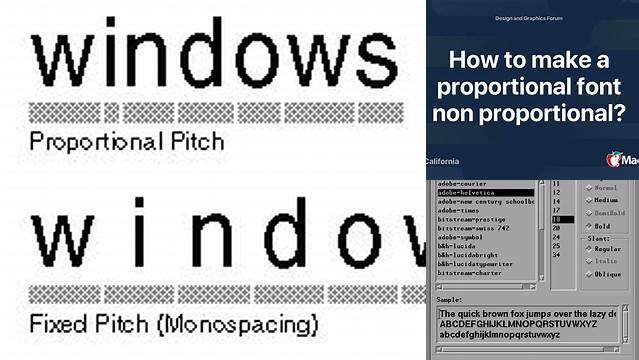
Windows Non-Proportional Fonts: Your Guide
Hey guys! Ever wondered about those fonts that make your code or text look super neat and tidy? We're diving into the world of Windows non-proportional fonts! These fonts, also known as monospace fonts, are designed with a special characteristic: every character, from the letter 'i' to the letter 'W', takes up the exact same amount of horizontal space. This consistency is what makes them perfect for specific uses. This article will explore the importance of non-proportional fonts, their use cases, how to find them on Windows, and why they are still incredibly relevant today. So, let's jump in and discover why these fonts are essential for developers, writers, and anyone who loves a clean and structured look.
What are Windows Non-Proportional Fonts? Why do they matter?
Alright, let's get down to basics. A non-proportional font, as mentioned before, assigns the same width to each character. This is totally different from proportional fonts, like Times New Roman or Arial, where the 'i' takes up much less space than the 'W'. Think about it: in code, where alignment is critical, having each character take up the same space ensures that everything lines up perfectly. This is crucial for code readability and debugging. The impact of non-proportional fonts goes far beyond just coding. Consider creating a table where you need columns to align exactly. Or maybe you’re formatting data in a terminal. The consistent spacing ensures visual clarity, making it easier to read and understand information at a glance. Understanding this characteristic is key to grasping their value. These fonts prevent common issues like misaligned code, which can be a major headache for developers. They are the backbone of many text-based applications and environments. Whether you're a programmer, a writer, or a data enthusiast, Windows non-proportional fonts bring order and structure to your digital text, and they should matter to you.
Imagine you're trying to spot a typo in a long piece of code. With a proportional font, characters can look jumbled, making it hard to catch small errors. Using a monospace font, everything is neatly organized, and the typo will jump out at you! The consistent spacing also makes it easier to spot patterns and relationships in your text. It helps with visual organization, improving the way information is presented. From a design perspective, these fonts give a sense of simplicity and technical precision. They're not just functional, but they also add a unique aesthetic, often associated with a sense of professionalism and expertise. The choice of non-proportional fonts often reflects a commitment to precision and clarity. In data analysis, for example, the proper display of information is critical. When different values appear in columns with different widths, things quickly become unreadable. With monospace fonts, all the values are guaranteed to align perfectly, allowing for a more efficient review of the information. This is also important when you're working with command-line interfaces (CLIs). These are the tools used for system administration and software development. The clear and organized layout of the CLI helps prevent errors and makes these environments more efficient. Finally, the role of non-proportional fonts in the modern world is significant, enabling programmers and others who depend on a clean presentation of text data to complete their tasks.
Key Use Cases for Non-Proportional Fonts
So, where do these fonts shine? Let's explore some essential use cases! The primary application is in coding and programming. Code needs perfect alignment, and a monospace font provides that. The consistent width of each character helps with readability, making it easier to spot errors, understand the structure, and debug programs. Think of it as a visual aid that helps developers focus on the logic of their code without being distracted by layout issues. Next up, they are brilliant for terminal applications and command-line interfaces (CLIs). In these environments, you often work with text-based commands and output. The fixed-width spacing keeps everything neat and tidy, allowing you to easily read command output, and understand how the software or system functions. The use of non-proportional fonts is extremely effective in these command-line interfaces. They make navigation and management of text and directories much easier, providing a cleaner and more organized view than a standard font would. Consider the cases of data entry and analysis. When working with spreadsheets or data tables, aligning columns is essential. Monospace fonts ensure that data is presented correctly, making it easier to compare values and identify patterns. This is crucial for making data-driven decisions. Besides, these fonts are excellent for plain text editors. If you enjoy writing and prefer simplicity, a monospace font can help you focus on the content. They provide a clean, uncluttered interface that lets you focus on your ideas. For example, when writing documentation, it can be helpful to make text more readable. Furthermore, in the world of technical writing, you'll often find these fonts being used to showcase code snippets, commands, or data output. The clear presentation makes it easier for readers to follow instructions and understand technical concepts. Whether you're working with code, data, or documents, non-proportional fonts significantly improve your productivity and the overall experience.
Let's not forget about retro and nostalgia. These fonts often bring back memories of older computing environments, like DOS or early Unix systems. Many people use monospace fonts for a touch of nostalgia, appreciating the simplicity and familiarity they bring. The history behind them adds a unique character that helps foster user interaction. These fonts are an important part of modern and past computing technology, enabling various tasks, from coding to plain text writing.
Many popular ones come pre-installed on Windows. Consolas is often a favorite among developers, thanks to its clarity and excellent readability. Courier New is another classic, known for its strong historical association with typewriters. Check out the options for each font to ensure it's a non-proportional font. If you can't find them in your Font Settings, don't worry! Windows allows you to install new fonts easily. You can download free monospace fonts from various online sources. There are plenty of websites that offer font downloads, often in TrueType (.ttf) or OpenType (.otf) formats. Just make sure you get them from a trusted source to avoid any security issues.
Once you have downloaded a font, installing it is simple. Double-click the font file to open it, and then click the Install button. The font will then be available in your font settings. To confirm that a font is non-proportional, look at the preview and check that all characters take up the same amount of space. You can also use a text editor, such as Notepad or VS Code, to check. Type a line of text and see if all characters align. In addition to these methods, some specific applications and IDEs (Integrated Development Environments) have their own font settings. For example, most code editors let you choose a monospace font directly in their preferences. In these programs, you'll often find a selection of monospace fonts, ready to use. This feature provides a personalized coding environment to each user.
Popular Non-Proportional Fonts
Let's take a look at some of the most popular non-proportional fonts available on Windows. If you're new to the scene, here's a quick overview:
- Consolas: This is a favorite among developers and programmers. It's designed for readability, with clear characters and a modern look. Consolas is easy on the eyes, making it great for long coding sessions. Many developers choose it for its clean design and clarity. Its design makes it one of the most used fonts. Consolas is a great choice for those working with code, as it allows for high readability, even in large blocks of text.
- Courier New: A classic monospace font with a typewriter-style appearance. It's ideal for mimicking the look of old-school typewriters. Courier New remains a popular option, offering a touch of nostalgia and a sense of classic typography. It is one of the original non-proportional fonts, and the style of the font is still widely recognized. Many people use it in documentation and technical manuals because of its traditional appearance.
So, next time you're coding, writing, or simply working with text, give these fonts a try. Explore different options, experiment with the settings, and see how they can transform your digital experience! You'll find that the careful use of monospace fonts can boost your productivity, improve readability, and add a touch of elegance to your work. The world of non-proportional fonts is vast, and each font has its own unique characteristics. The most crucial thing to remember is that the perfect font is out there for you! Explore the world of non-proportional fonts and discover the benefits they bring. Happy font hunting!